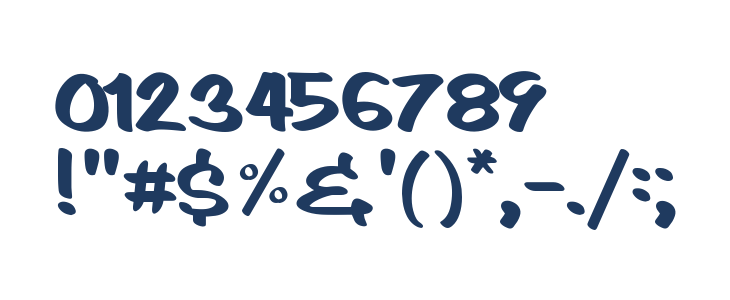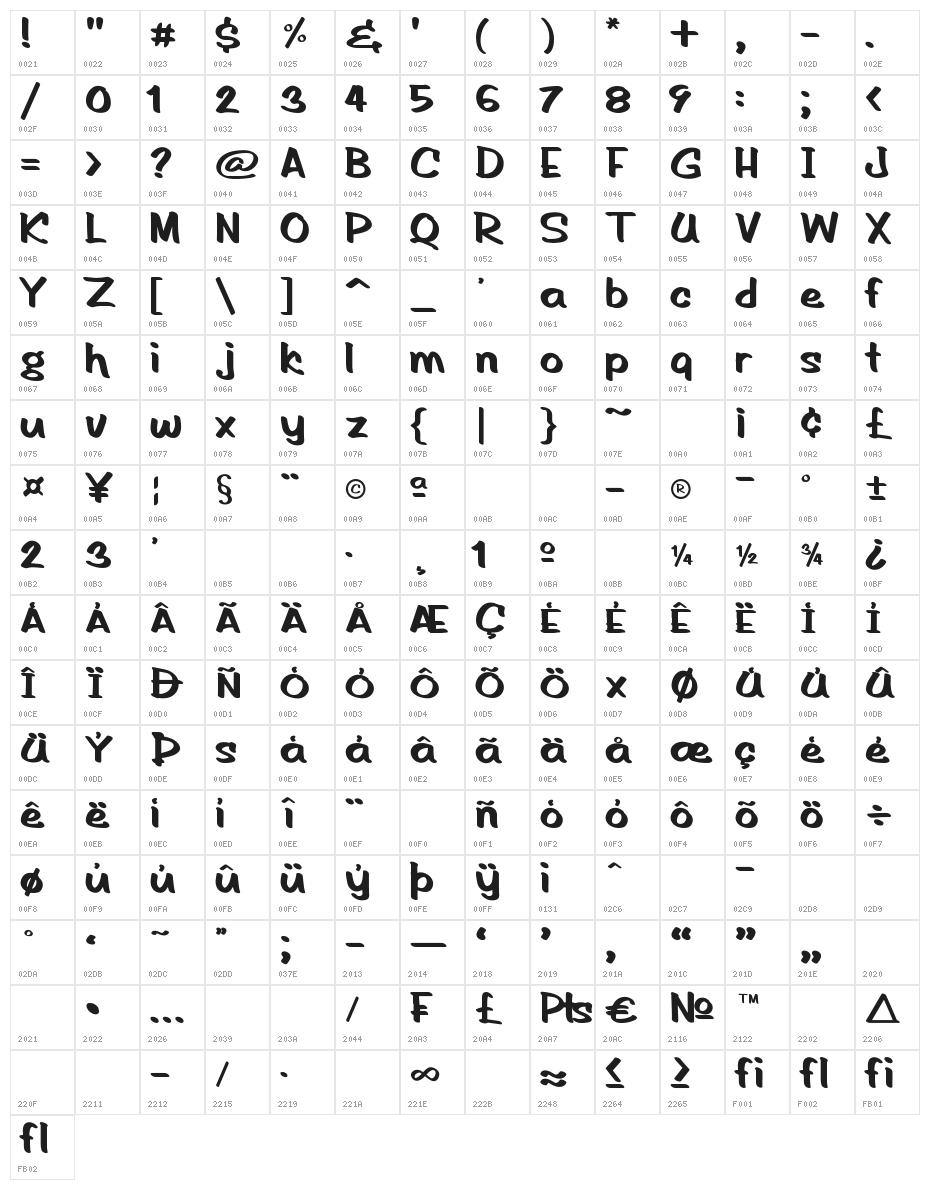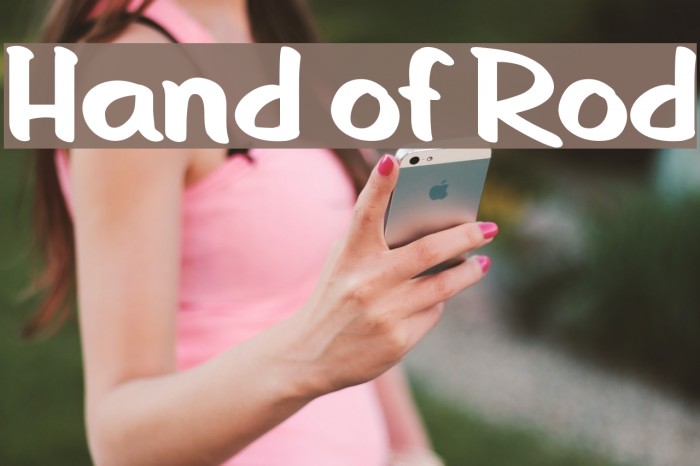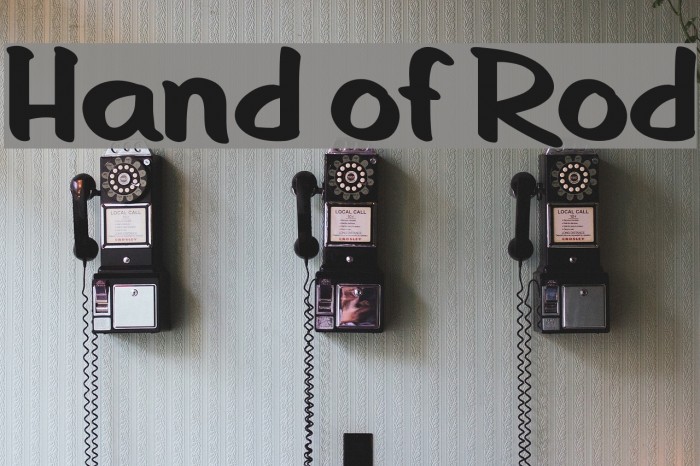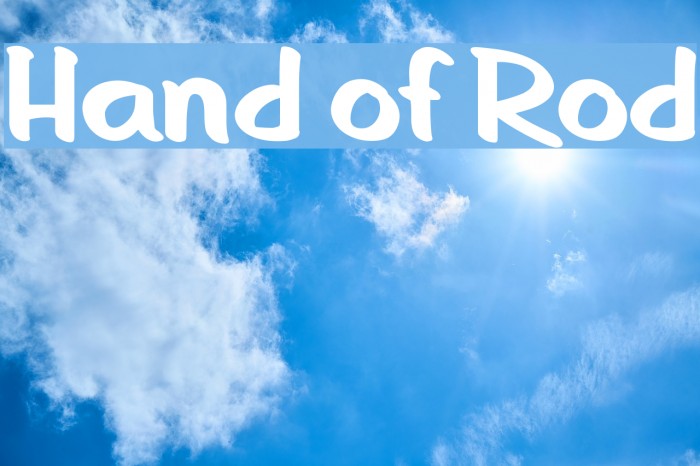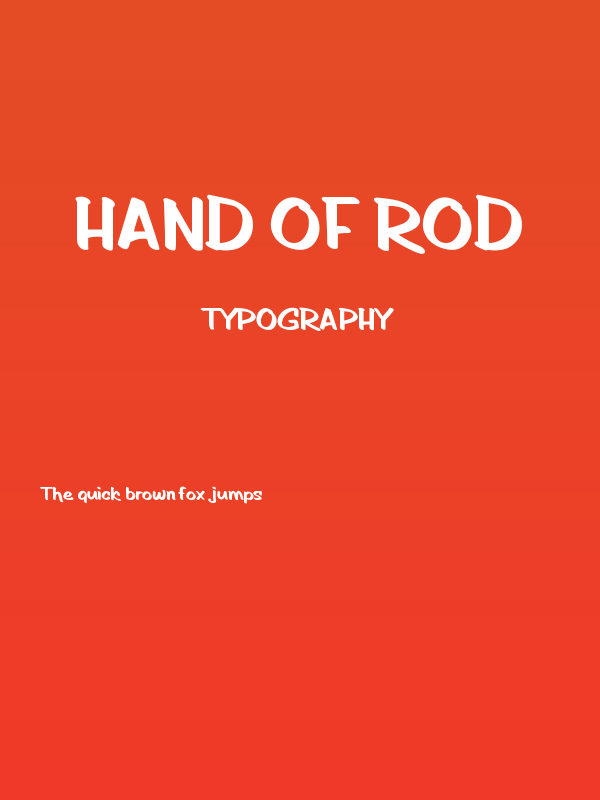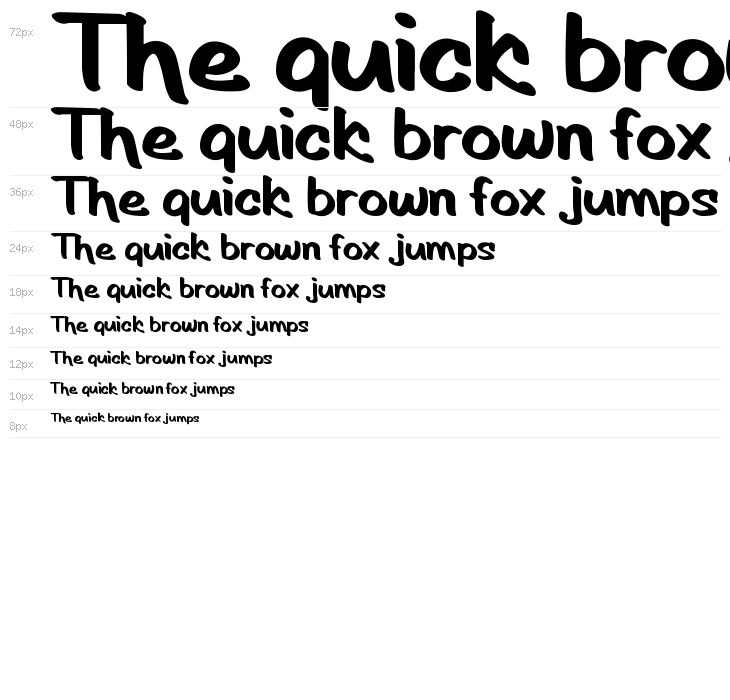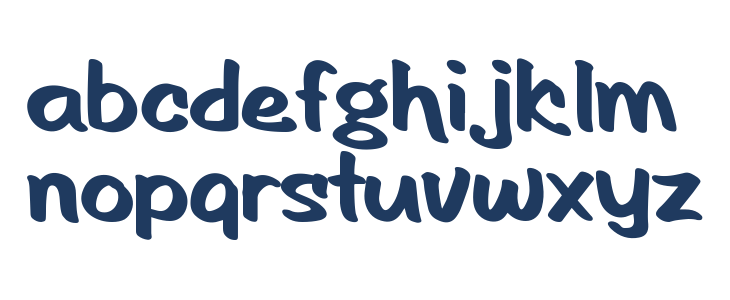
Hand of Rod Font
Hand of Rod Description
This font exhibits a playful and informal style, characterized by its bold and rounded letterforms. The strokes are thick and consistent, giving it a strong presence on the page. The characters have a hand-drawn appearance, with slight variations that add to its charm. The uppercase and lowercase letters maintain a cohesive look, while the numerals and special characters are equally expressive. This font's whimsical nature makes it suitable for creative and casual applications.
| Proposed Projects | Ideal for children's books, greeting cards, playful branding, and casual invitations. |